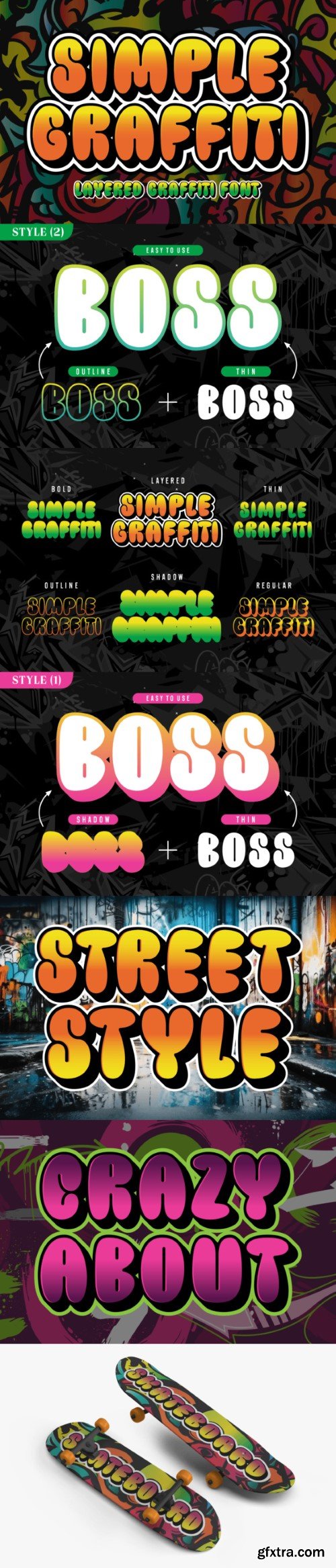
简单的涂鸦字体
Simple Graffiti is a cool and straightforward graffiti font that brings an edgy vibe to your projects. With bold, urban-style lettering, it’s perfect for making a statement or adding a touch of street art flair to your designs. Whether you’re creating posters, streetwear graphics, or anything that demands a touch of urban attitude, Simple Graffiti is your go-to font for an effortlessly cool look. Express your style with this easy-to-use and bold typeface.